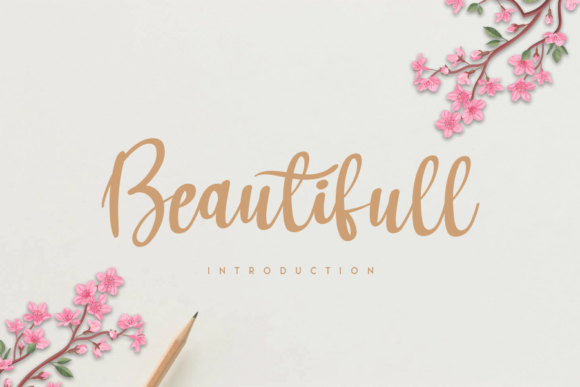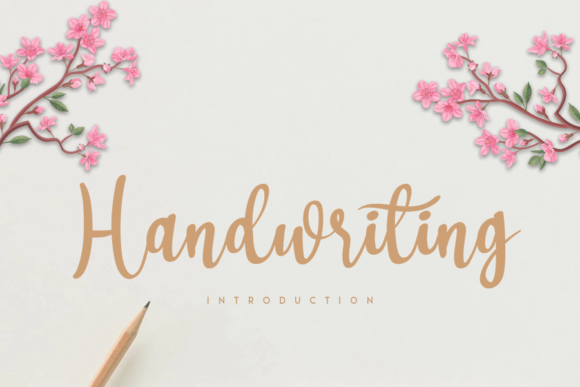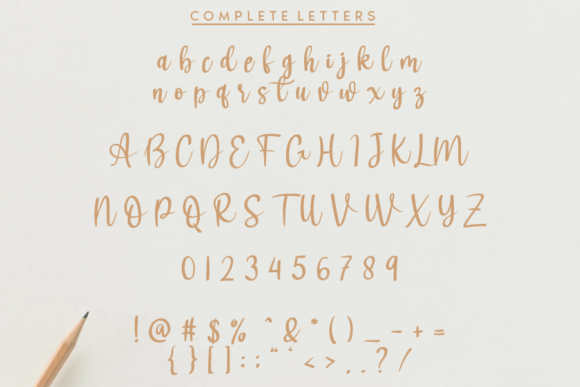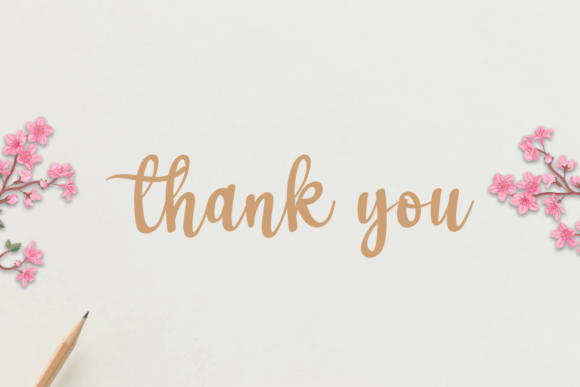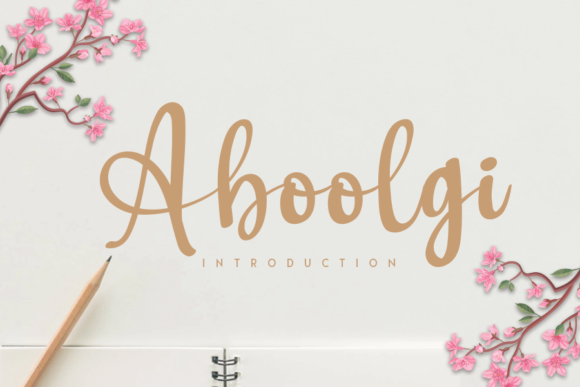
Aboolgi Font: Elevate Your Designs with Elegance and Sophistication
In the world of typography, fonts play a crucial role in conveying the tone and personality of a design. For designers and crafters seeking to add a touch of elegance and sophistication to their projects, Aboolgi Font is an exceptional choice. This flowing handwritten font is described by its elegant touch, making it perfect for a wide range of applications. In this article, we’ll explore the unique features of Aboolgi Font and how it can help you create spectacular designs that stand out.
The Distinctive Style of Aboolgi Font
Aboolgi Font boasts an incredibly distinct and timeless style that is sure to captivate your audience. Its flowing handwritten script exudes a sense of elegance and refinement, making it ideal for designs that require a touch of sophistication. The font’s unique characteristics, such as its fluid strokes and carefully crafted letterforms, work together to create a visually stunning effect that is both classic and modern.
One of the key benefits of Aboolgi Font is its versatility. Its elegant style makes it suitable for a wide range of projects, including:
• Logos and branding: Create a lasting impression with a custom logo that showcases your brand’s personality and style.
• Stationery and invitations: Add a touch of sophistication to your wedding invitations, business cards, and letterheads.
• Digital and print media: Use Aboolgi Font in your social media graphics, blog posts, and print advertisements to elevate your visual content.
• Crafting and DIY projects: Add a personal touch to your handmade crafts, such as journals, planners, and gift tags.
Why Choose Aboolgi Font?
With so many fonts available, why choose Aboolgi Font for your projects? Here are just a few reasons:
• Unique style: Aboolgi Font’s distinctive style sets it apart from other fonts, ensuring your designs stand out from the crowd.
• Elegant and sophisticated: The font’s elegant touch adds a level of sophistication to your designs, making them perfect for high-end projects.
• Easy to read: Despite its elegant style, Aboolgi Font remains highly legible, making it suitable for body text and headings.
• Highly versatile: Use Aboolgi Font in a variety of projects, from digital designs to print materials.
Tips for Using Aboolgi Font
To get the most out of Aboolgi Font, here are some tips to keep in mind:
• Pair with complementary fonts: Combine Aboolgi Font with complementary fonts to create visual interest and hierarchy in your designs.
• Experiment with colors: Aboolgi Font looks stunning in a range of colors, from classic black and white to bold and bright hues.
• Pay attention to spacing: Ensure your text is easy to read by paying attention to spacing and kerning.
Aboolgi Font is a beautiful and elegant handwritten font that can elevate your designs to new heights. Its unique style, versatility, and ease of use make it an excellent choice for designers and crafters seeking to add a touch of sophistication to their projects. Whether you’re creating logos, stationery, or digital media, Aboolgi Font is sure to impress. So why not fall in love with Aboolgi Font and use it to create spectacular designs that leave a lasting impression?